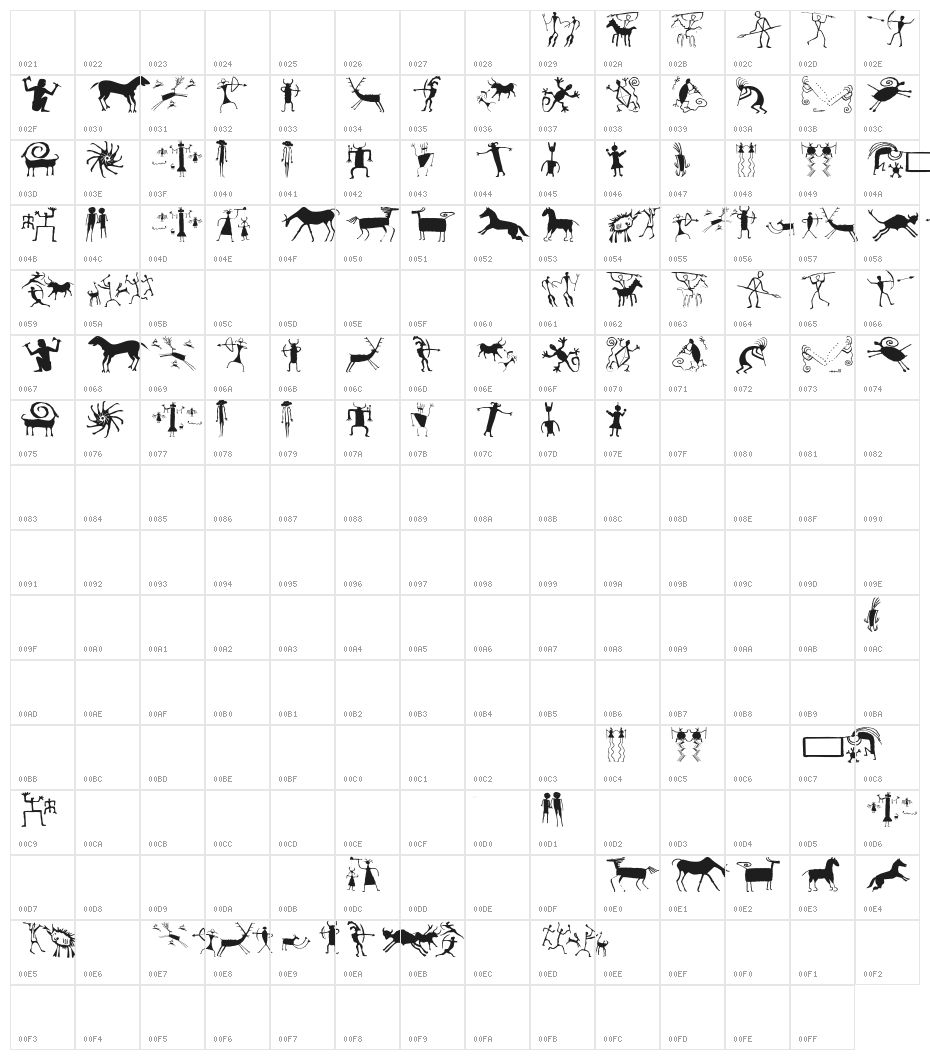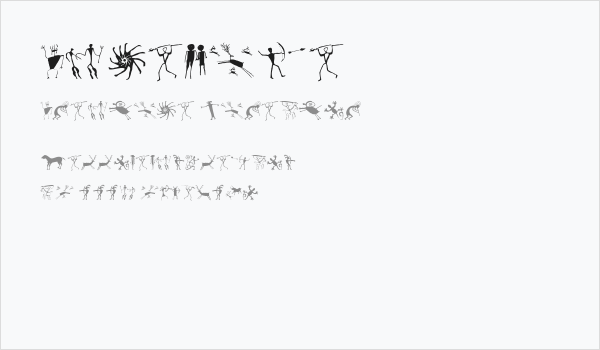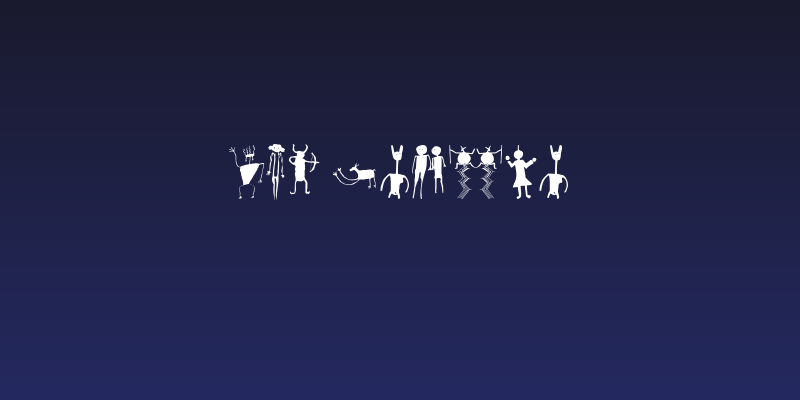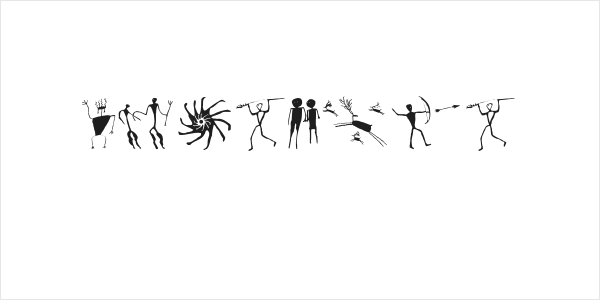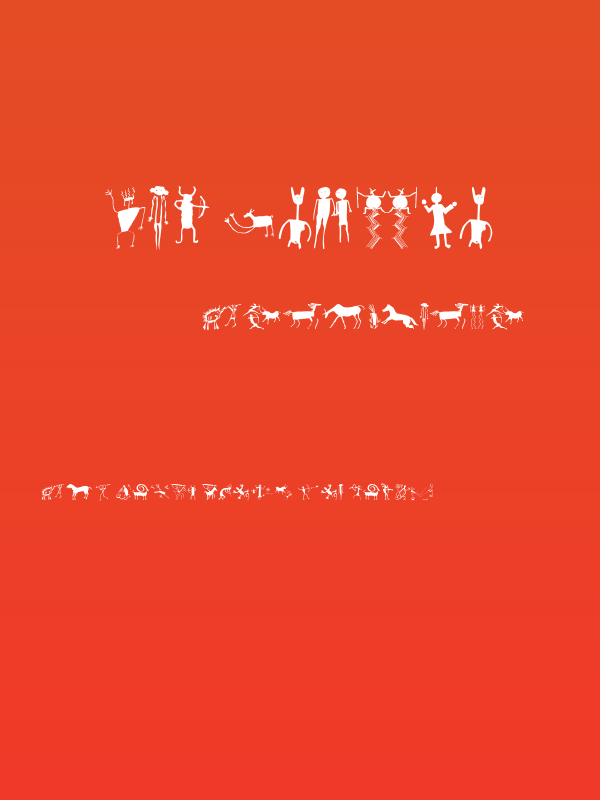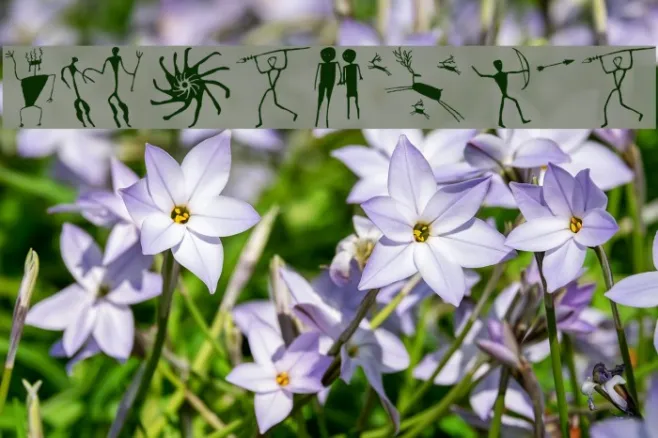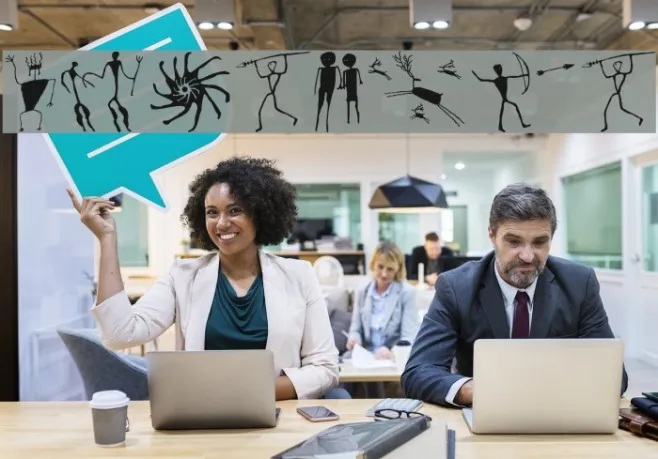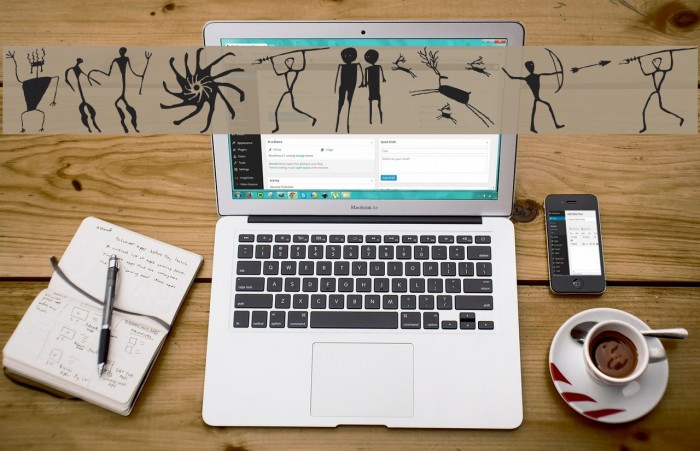
CaveLife Font
CaveLife Description
This font is a unique and artistic representation of ancient cave paintings, capturing the essence of primitive art with its depiction of human figures, animals, and abstract symbols. The characters are crafted to resemble the simplistic yet expressive style of prehistoric cave drawings, with each symbol telling a story of early human life and nature. The strokes are uneven and organic, mimicking the natural brushstrokes found in ancient art. This font is not only a tribute to historical art forms but also a creative tool for modern design projects that seek to evoke a sense of history and culture.
| Use Case | Logos, Artistic projects, Educational materials |
| Proposed Projects | Ideal for historical documentaries, educational materials, themed event posters, and artistic projects that require a touch of ancient culture. |